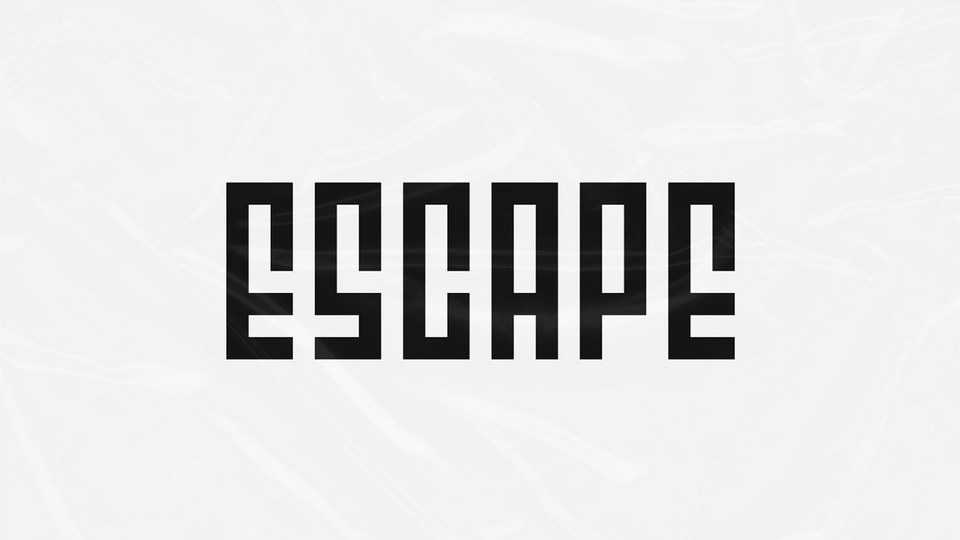
Download Escape font, a bold and minimal display typeface ideal for headlines. Escape font is constructed using a grid system allowing for complete manipulation of the type.
Designer: Paul Stancel